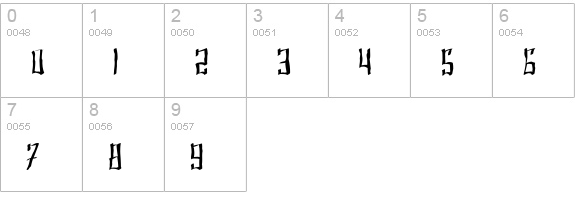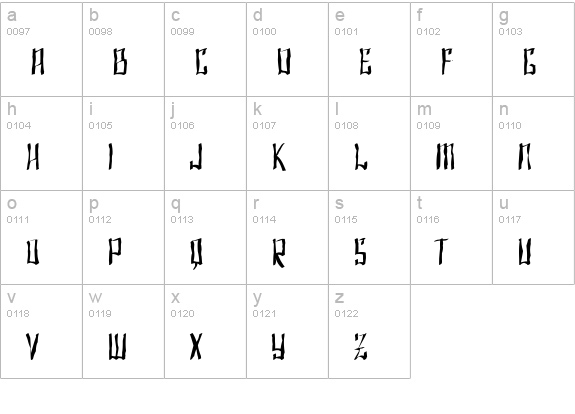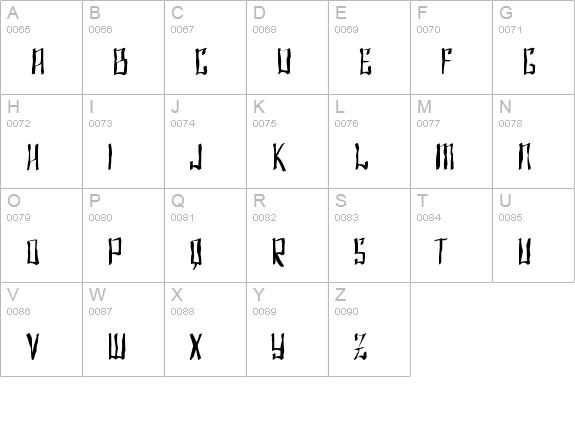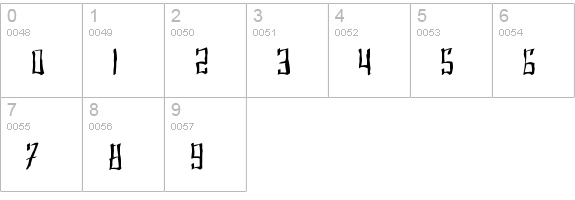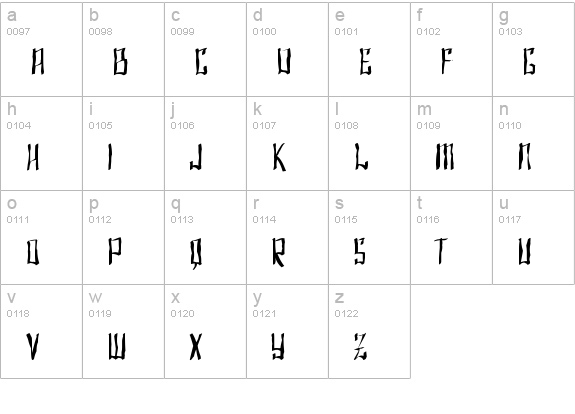
SF Shai Fontai Distressed Font Details
Introducing SF Shai Fontai Distressed, a captivating display font that will add a touch of rustic charm to your designs. This unique typeface combines the elegance of traditional letterforms with a distressed texture, resulting in a visually striking and versatile font. SF Shai Fontai Distressed features bold, slightly uneven strokes that create an authentic aged effect, giving your designs a vintage, weathered look. Its distressed appearance makes it perfect for adding character to various design projects, such as logos, headlines, posters, and more. This font is not only visually appealing but also highly legible, ensuring that your messages are conveyed clearly and effectively. Its carefully crafted letterforms maintain readability, even with the distressed texture, making it suitable for both print and digital projects. One of the best things about SF Shai Fontai Distressed is that it is available for free download at FontsMarket.com. You can easily access this captivating font and bring a touch of uniqueness to your creative projects without any cost. Whether you're a professional designer or a hobbyist, this font offers a high-quality solution that won't weigh on your budget. Don't miss the opportunity to enhance your designs with SF Shai Fontai Distressed. Download it for free at FontsMarket.com and unlock a world of possibilities where vintage aesthetics meet contemporary design. Let your creativity soar and make a lasting impression with this stunning and freely available font.